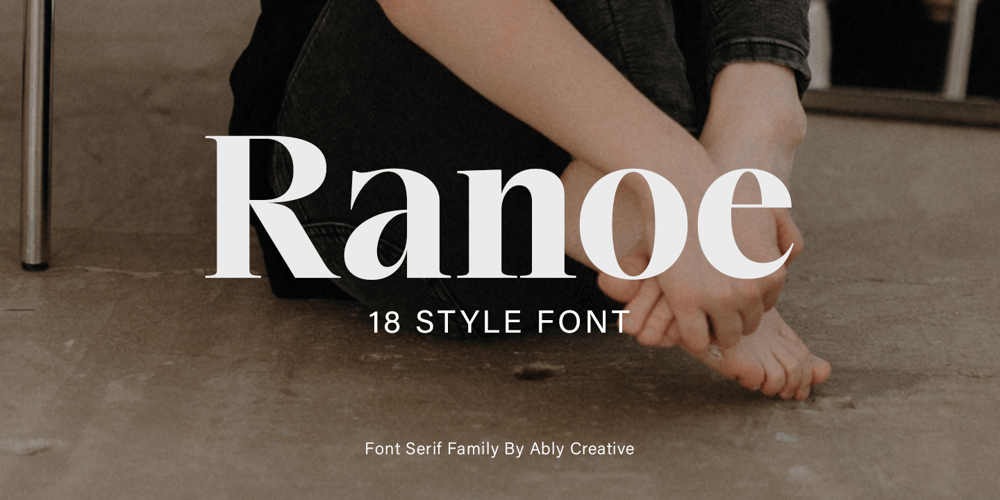
Ranoe family Font Family was designed by Amrullah Medan, Amrullah and published by Ably Creative. Ranoe family contains 18 styles and family package options. First designed in 2025, Ranoe family font is a clean and fresh letter system, with measured geometry, yet conservative enough for brochure and newspaper settings. The complete Ranoe family font contains 18 styles, with stunning Symbols designed specifically for brochures, newspapers, magazines Posters, a bolder, elegant and attractive version in three styles for your Logo and identity, containing 232 glyphs with the best serif styles of the year.